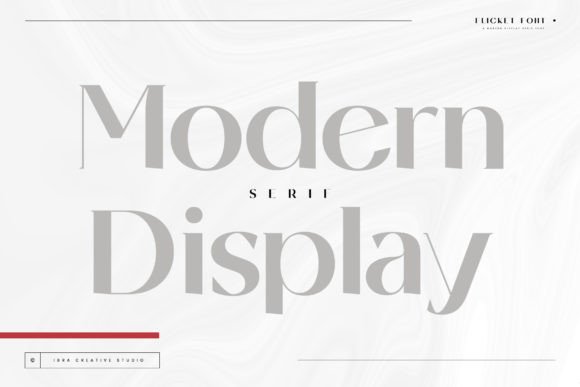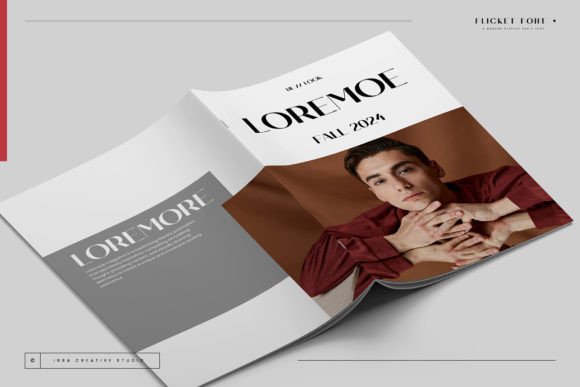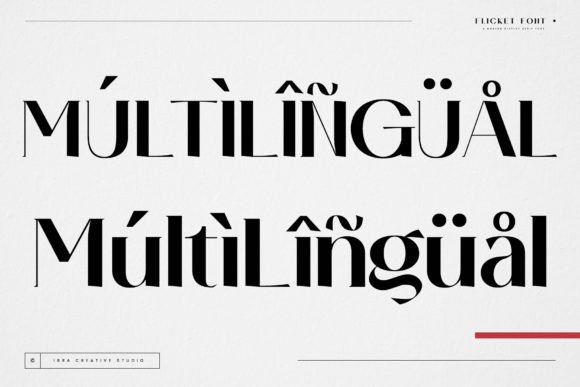
Introduction to Flicket Font
Flicket is a contemporary display serif font that seamlessly blends sophistication with a touch of whimsy, making it an ideal choice for modern design projects.
With its clean lines and subtle flourishes, Flicket exudes a timeless elegance that captures attention while maintaining readability The typeface strikes a harmonious balance between classic serif elements and a contemporary aesthetic, making it versatile for a range of applications, from editorial design to branding.
Key Features of Flicket Font